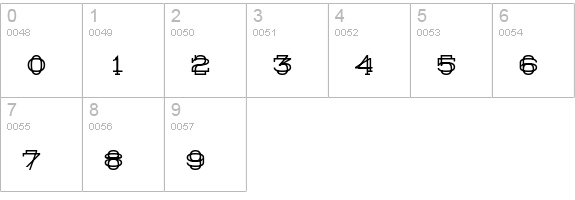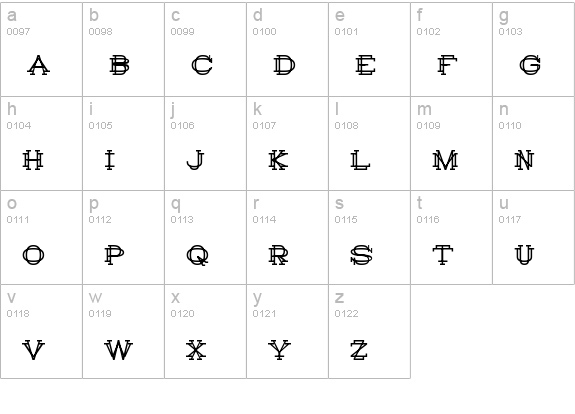
History Repeating Regular Font Details
History Repeating Regular is the standard, neutral variant in the History typeface family \xE2\x80\x94 well suited to general body text, paragraphs, and standard typographic work.
History Repeating Regular font is a classic and timeless typeface that exudes elegance and sophistication. Its clean lines and balanced proportions make it perfect for a wide range of design projects, from invitations to branding to editorial layouts. This versatile font is inspired by traditional typography styles, giving it a sense of heritage and authenticity. The History Repeating Regular font is available for free download exclusively at FontsMarket.com. With its easy accessibility, designers and creatives can incorporate this beautiful font into their work without any cost, adding a touch of refinement and charm to their projects. Don't miss out on the opportunity to enhance your designs with this exquisite typeface that captures the essence of history repeating itself in a modern and stylish way.